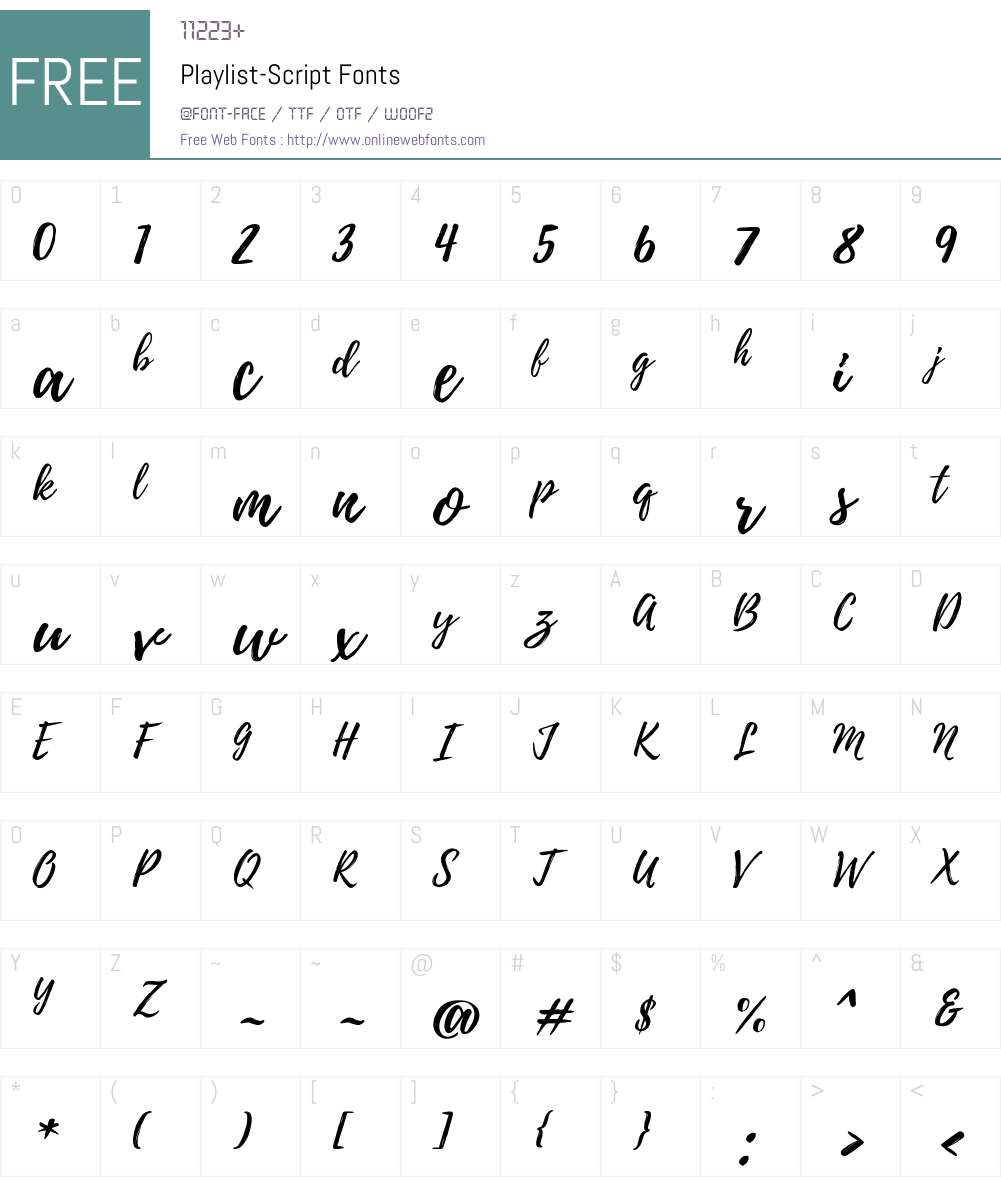
This version is a personal to use only. The font is available in all formats (playlist woff2, playlist woff, playlist ttf, playlist eot) and applicable to the website, photoshop and any os. This stylish and handwritten texture style is designed by motokiwo.
Script, Caps, And Ornament, Which You Can Combine To Create A Beautiful Designs.
This font comes in only 3 styles script, caps, ornaments and. Playlist font with a script style belongs to the playlist family. This typeface is available in otf and ttf file versions that are compatible with pc and mac.
Playlist is a perfectly imperfect handdrawn font with dry brush styles.playlist font contains 3 styles: Download for free playlist script. It is suitable for wing invitation, greeting card, illustration, quotes, poster, […]
It gives an esthetic look to the design and can be downloaded in 2 formats, including ttf and otf. File name file size file type options; Playlist script font is a font with distinctive handwritten characters perfect for branding projects, logos, wedding designs, media posts, advertisements, product packaging, product designs, labels, photography, watermarks, invitations, stationery, and any project who need handwritten dishes.